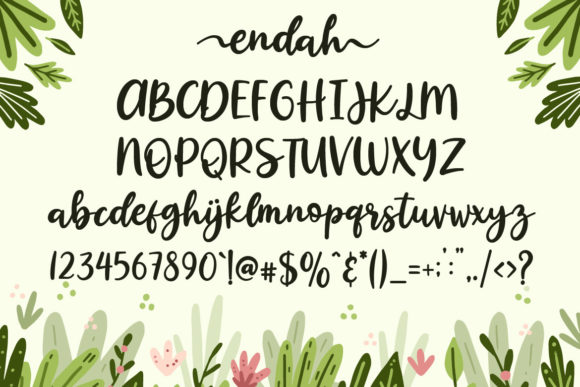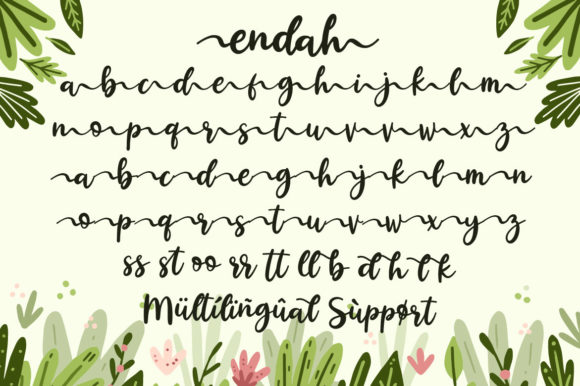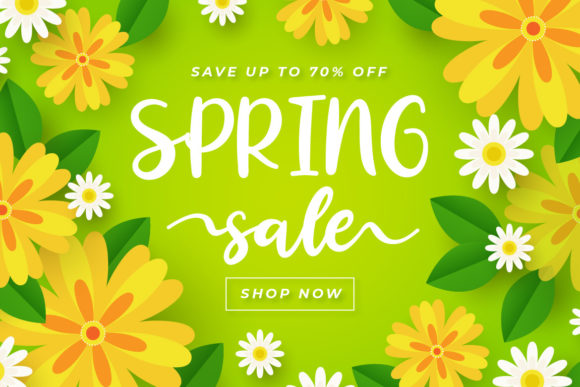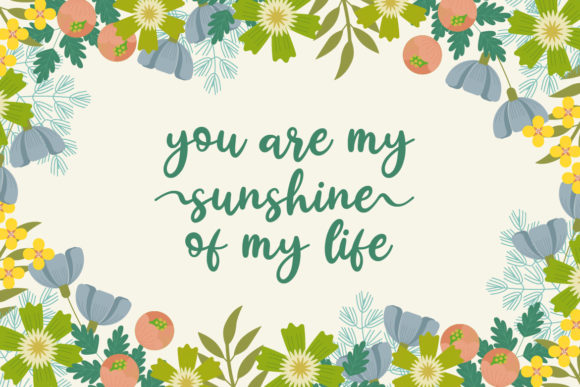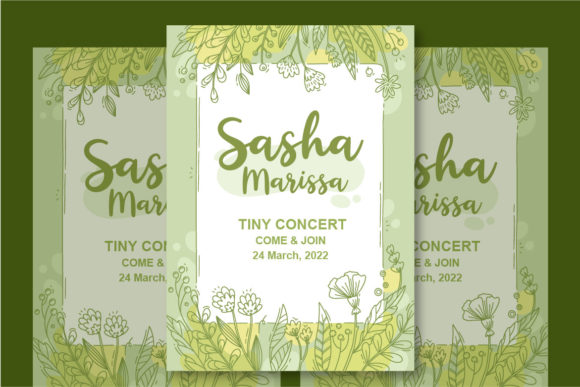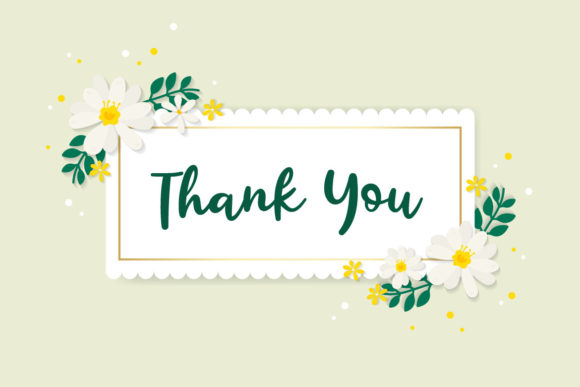
About Endah Font
Endah is a delightful and versatile handwritten font that adds a touch of warmth, romance, and joy to any design project. With its charming and well-balanced characters, Endah brings a sense of playfulness and authenticity to your creations.
The sweet and all-round nature of Endah makes it suitable for a wide range of design applications. Whether you’re designing greeting cards, wedding invitations, branding materials, social media graphics, or any other project, this font will infuse your designs with a delightful and friendly vibe.
Endah’s flexibility allows you to explore endless variations and creative possibilities. You can experiment with different letterforms, ligatures, and stylistic alternates to create a personalized and unique look for your designs. The font’s warm and romantic style makes it especially suitable for projects related to love, happiness, and celebration.
Embrace the versatility of Endah and have fun exploring its various uses. From playful designs for children to elegant and whimsical creations for weddings or festive occasions, this font adds a touch of charm and beauty to every project.
With Endah, you can effortlessly bring your ideas to life and create real works of art. Its handwritten and organic feel adds a personal and authentic touch, making your designs stand out and connect with your audience on a deeper level.
In summary, Endah is a sweet, all-round, and flexible handwritten font that brings warmth, romance, and joy to your designs. Its versatility allows for endless variations, and its charming nature makes it suitable for various projects. Let your creativity flourish with Endah and enjoy the process of transforming your ideas into beautiful works of art.